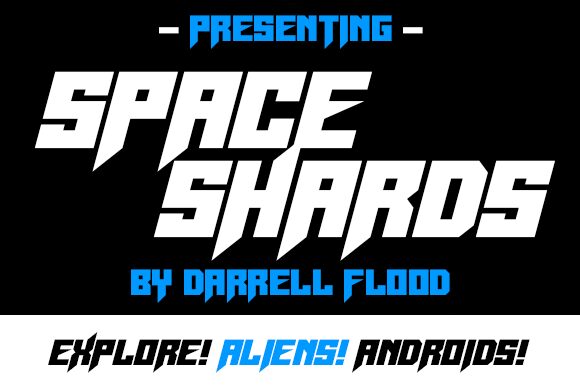
Space Shards
Introducing Space Shards, a bold and wide display font designed by Darrell Flood. This futuristic font is perfect for projects that demand an otherworldly feel, from sci-fi movie posters to video game titles.